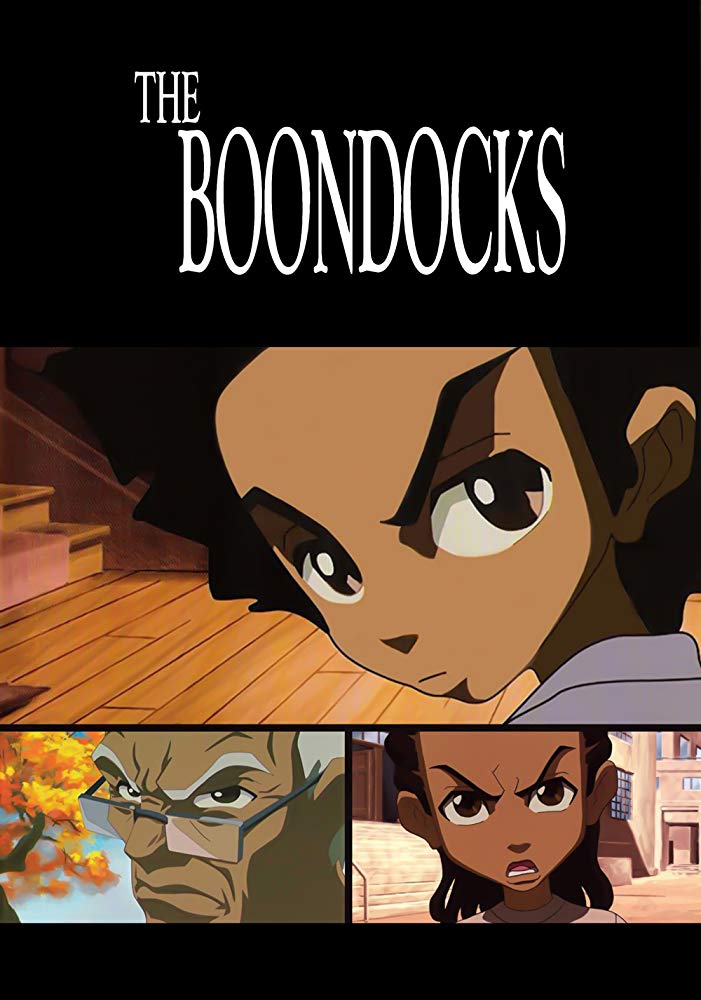
The Boondocks Font
AnimationThe Boondocks is an animated sitcom that follows the adventures of the Freeman family, who have recently moved from the city to the suburbs and must navigate their new, predominantly white neighborhood.
In the Boondocks TV series, the letters are horizontally condensed and look similar to URW's Goudy Old Style Bold. You can download Goudy WTC from CastCraft for free as an alternative to Goudy Old Style.